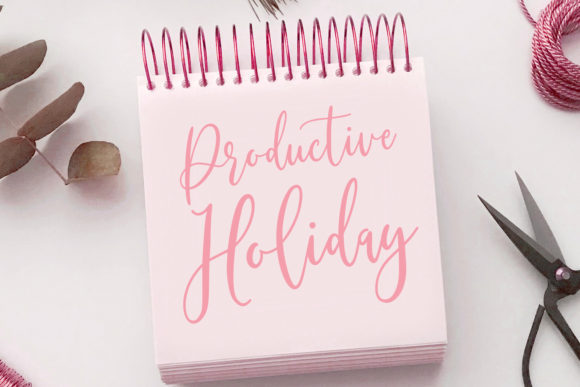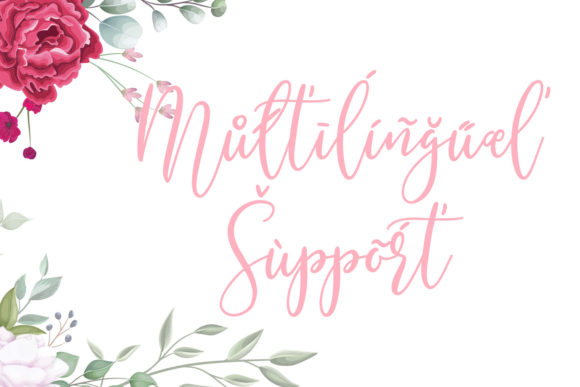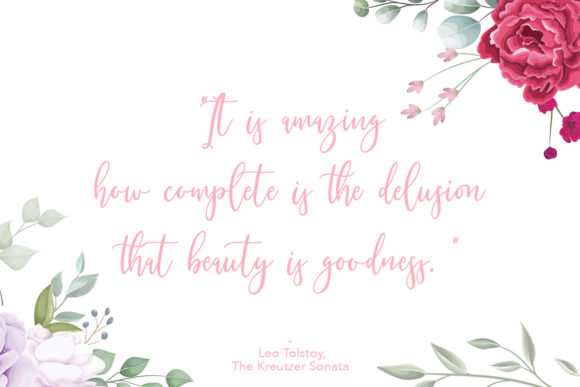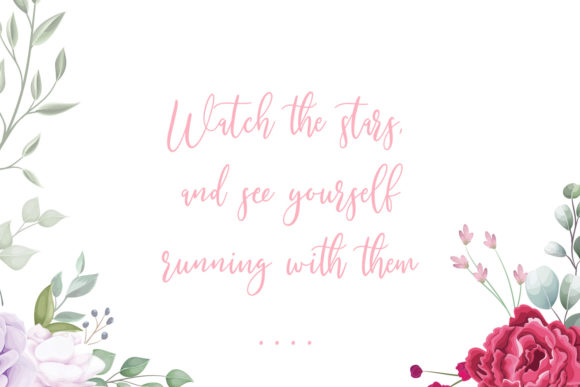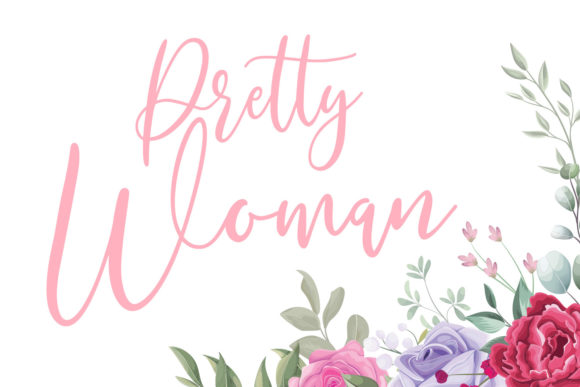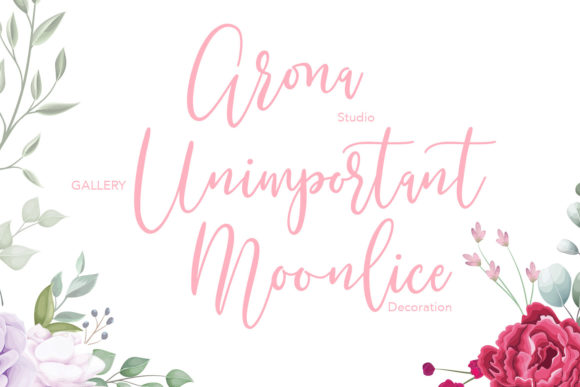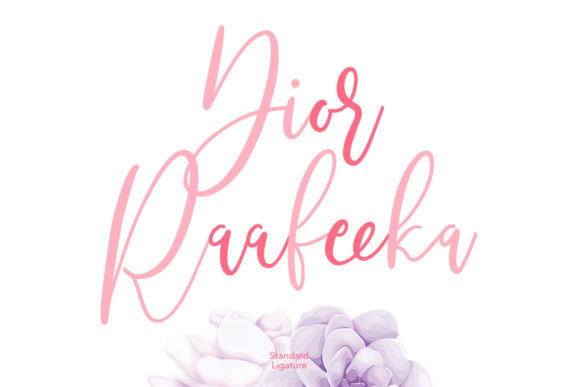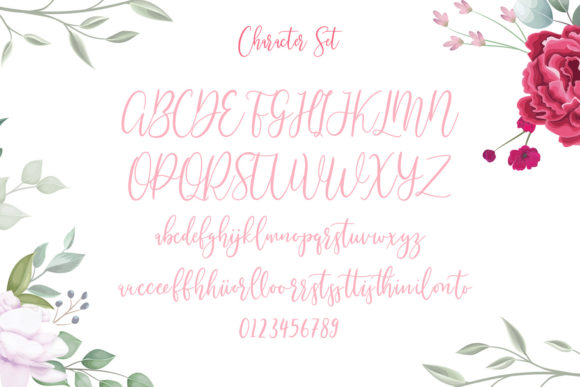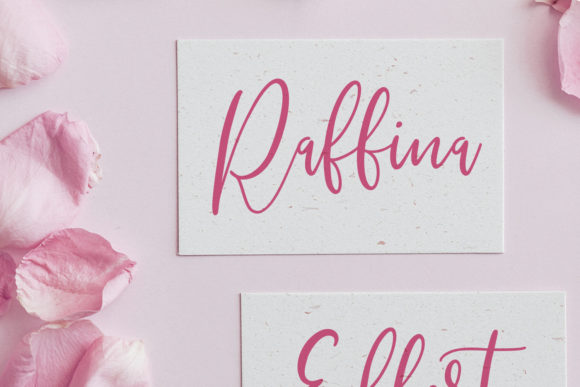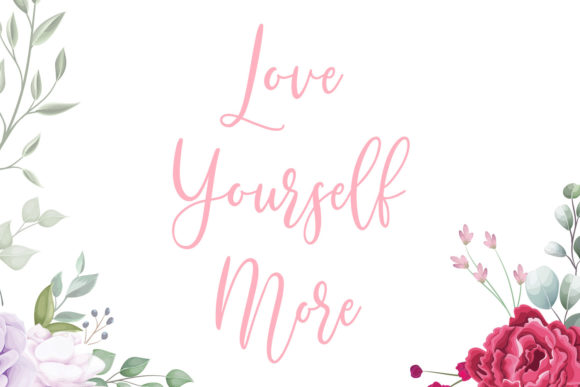
Righttoast Font
About Righttoast Font
Righttoast is a flowing script font that exudes a sense of relaxation and charm. With its lovely style and effortless flow, this font is a versatile addition to your fonts’ library, capable of enhancing a wide range of design projects.
No matter the topic or purpose of your creation, Righttoast has the potential to elevate it to new heights. Its smooth and fluid strokes create a sense of elegance and grace, making it suitable for a variety of applications. Whether you’re designing invitations, logos, packaging, or any other project, Righttoast adds a touch of sophistication and beauty.
The relaxed theme of Righttoast adds a casual and approachable vibe to your designs. It feels friendly and inviting, making it a perfect choice for projects that aim to create a warm and welcoming atmosphere. Its versatility allows it to adapt to different design styles and themes, ensuring it can be used in a wide range of contexts.
By incorporating Righttoast into your fonts’ library, you’ll have a reliable asset at your disposal. Its flowing nature and charming style make it easy to work with and suitable for various design purposes. Whether you’re creating a romantic wedding invitation or a playful social media post, Righttoast can effortlessly enhance the visual appeal of your creations.
Embrace the potential of Righttoast and witness how it elevates your designs with its flowing, relaxed style. Its versatility and ability to adapt to any topic or purpose make it a valuable addition to your fonts’ library. Let Righttoast be the finishing touch that brings a sense of elegance and charm to your next design project.